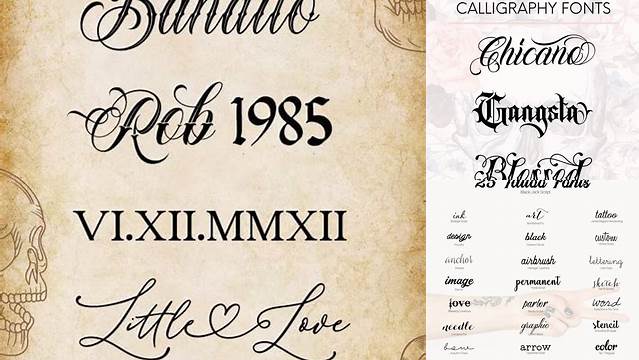
Best Tattoo Fonts For Names: Ultimate Guide 2024
Choosing the right font for a name tattoo is crucial. It's not just about aesthetics; it's about finding a font that reflects the personality and significance of the name itself. Guys, whether you’re getting a tattoo for yourself or honoring someone special, the font will be a permanent part of the design. This guide dives deep into the best tattoo fonts for names, exploring various styles and offering tips to make the perfect choice.
1. Script Tattoo Fonts for Names
Script fonts are a classic choice for name tattoos, offering elegance and a personal touch. When you’re thinking about best tattoo fonts for names, script styles often come to mind first. These fonts mimic handwriting, adding a sense of intimacy and artistry to the tattoo. There are countless variations within script fonts, from flowing and ornate to clean and modern. The key is to select a script that complements the name's length and the overall tattoo design. For instance, a longer name might look stunning in a cursive font with delicate flourishes, while a shorter name could benefit from a bolder, more defined script. Consider the placement of the tattoo as well; a script font might flow beautifully along the curve of a wrist or collarbone. The versatility of script fonts makes them a top contender when searching for the best tattoo fonts for names. It’s important to ensure the font is legible, even with intricate details, so the name remains clear and easy to read. Additionally, the thickness of the lines in the script should match the overall size of the tattoo to prevent blurring over time. Remember, the goal is to create a lasting tribute that not only looks beautiful but also remains readable for years to come.
2. Gothic Tattoo Fonts for Names
Gothic fonts bring a dramatic and bold feel to name tattoos. When you're aiming for something with a bit of edge, Gothic fonts are definitely in the running for best tattoo fonts for names. They evoke a sense of history and mystery, making them a popular choice for those who appreciate a more intense aesthetic. These fonts, with their sharp angles and elaborate details, can transform a simple name into a powerful statement. Think about the name you're tattooing; a Gothic font can add gravitas and depth. However, it's essential to consider the legibility of the font, especially if the name is long or complex. Too many intricate details can make the tattoo look cluttered and difficult to read over time. The placement of the tattoo also plays a significant role. Gothic fonts often work best on larger areas of the body where the details can be fully appreciated. They can be particularly striking on the back, chest, or upper arm. When exploring best tattoo fonts for names, Gothic fonts offer a unique way to personalize a tattoo and make it stand out. Working closely with your tattoo artist is crucial to ensure the chosen Gothic font fits well with the design and skin area. They can provide valuable insight into how the font will age and how best to maintain its clarity and impact.
3. Traditional Tattoo Fonts for Names
Traditional tattoo fonts offer a timeless and classic appeal. Often characterized by bold lines and clean lettering, these fonts are a fantastic option when you're considering the best tattoo fonts for names. They have a vintage vibe that resonates with the history of tattooing itself. These fonts are not only aesthetically pleasing but also highly legible, which is a crucial factor for any tattoo, especially one featuring a name. Traditional fonts are designed to stand the test of time, both in terms of style and durability on the skin. When you're thinking about the longevity of your tattoo, a traditional font is a safe bet. The simplicity of the design means it's less likely to blur or fade over the years, maintaining its clarity and impact. The boldness of the lines ensures the tattoo will remain visible, even as the ink settles and the skin ages. Considering the best tattoo fonts for names also involves thinking about the overall aesthetic you want to achieve. Traditional fonts pair well with classic tattoo imagery, such as anchors, roses, and eagles, creating a cohesive and visually appealing design. The versatility of these fonts makes them suitable for various placements on the body, from the forearm to the chest. Ultimately, choosing a traditional font for a name tattoo is a way to honor the art form's rich history while creating a lasting tribute.
4. Calligraphy Tattoo Fonts for Names
Calligraphy fonts bring an artistic and flowing quality to name tattoos. They're a top contender when you’re searching for the best tattoo fonts for names, offering a personalized and elegant touch. These fonts, inspired by the art of hand lettering, allow for a great deal of customization, making each tattoo unique. The beauty of calligraphy lies in its graceful strokes and the way the letters connect and flow together. This creates a visual rhythm that can enhance the aesthetic appeal of the name. When considering calligraphy, think about the specific style that resonates with you. There are many variations, from traditional scripts to modern and whimsical interpretations. The choice will depend on your personal taste and the overall design of the tattoo. For the best tattoo fonts for names, calligraphy provides a way to express individuality and artistic flair. A skilled tattoo artist can adapt the calligraphy style to fit the contours of your body, creating a tattoo that looks like a natural extension of your skin. Placement is key with calligraphy tattoos; they often look stunning on areas where the flow of the font can be fully appreciated, such as the wrist, collarbone, or along the spine. Remember, the goal is to create a tattoo that is not only beautiful but also legible and meaningful.
5. Cursive Tattoo Fonts for Names
Cursive fonts are a timeless choice for name tattoos, exuding elegance and fluidity. When you're exploring the best tattoo fonts for names, cursive styles consistently rank high due to their classic appeal. These fonts mimic handwriting, adding a personal and intimate touch to the tattoo. The flowing lines and connected letters create a visually pleasing effect, making cursive fonts ideal for names that you want to stand out with a sense of grace. There are numerous cursive variations, from delicate and ornate scripts to bolder and more modern styles. Choosing the right one involves considering the name’s length, the desired overall aesthetic, and the tattoo's placement. A longer name might look best in a simpler cursive, while a shorter name can handle more elaborate flourishes. When selecting the best tattoo fonts for names, legibility is paramount. Ensure that the cursive style you choose is clear and easy to read, even with its decorative elements. The size of the tattoo and the thickness of the lines also play a crucial role in maintaining clarity over time. Cursive fonts often shine when placed on areas that allow for the natural flow of the script, such as the wrist, forearm, or along the collarbone. Ultimately, a well-executed cursive name tattoo can be a beautiful and lasting tribute, capturing the essence of the name in an elegant and timeless manner.
6. Simple Tattoo Fonts for Names
Simple fonts offer a clean and understated elegance for name tattoos. If you're looking for the best tattoo fonts for names that are both timeless and easy to read, simple fonts are an excellent option. These fonts prioritize clarity and minimalism, making them a versatile choice for various styles and placements. A simple font can range from a basic sans-serif to a clean, slightly stylized script, allowing for personalization without overwhelming the design. The key advantage of simple fonts is their legibility. Unlike more ornate styles, simple fonts are less likely to blur or fade over time, ensuring the name remains clear and readable for years to come. This makes them a practical choice for those who value longevity in their tattoos. When considering the best tattoo fonts for names, simple fonts work well with different aesthetics, from traditional to modern. They can be easily paired with other design elements, such as symbols or images, without competing for attention. Additionally, simple fonts are suitable for a wide range of tattoo sizes and placements. They look equally good on a small, delicate tattoo on the wrist as they do on a larger piece on the back or chest. Whether you prefer a minimalist look or want a font that complements other tattoo elements, simple fonts offer a reliable and stylish choice for name tattoos.
7. Elegant Tattoo Fonts for Names
Elegant fonts bring a touch of sophistication and grace to name tattoos. When you’re searching for the best tattoo fonts for names that exude class, elegant fonts are a perfect choice. These fonts often feature delicate lines, graceful curves, and a sense of refined beauty. They are ideal for those who want their name tattoo to reflect a sense of poise and elegance. Elegant fonts come in various styles, from flowing scripts to refined serif typefaces, each offering a unique aesthetic appeal. The key to choosing an elegant font is to ensure it complements the name and the overall tattoo design. For instance, a longer name might look stunning in a script with intricate flourishes, while a shorter name could benefit from a more structured, yet elegant, serif font. When considering the best tattoo fonts for names, legibility should remain a priority. While elegance is important, the font should also be clear and easy to read. Overly ornate or intricate fonts can become difficult to decipher over time, especially as the tattoo ages. Elegant fonts often look best on areas of the body that allow for their graceful lines to flow naturally, such as the wrist, collarbone, or upper back. A well-chosen elegant font can transform a simple name tattoo into a sophisticated piece of art, making it a lasting tribute to the name and the person it represents.
8. Bold Tattoo Fonts for Names
Bold fonts make a strong statement in name tattoos, conveying confidence and presence. If you're aiming for the best tattoo fonts for names that stand out, bold fonts are an excellent choice. These fonts command attention with their thick lines and robust letterforms, making them highly visible and impactful. Bold fonts are particularly effective for shorter names or when you want the name to be the focal point of the tattoo. They work well in various styles, from classic block letters to more stylized and modern designs. The key benefit of bold fonts is their legibility. The thick lines ensure that the name remains clear and readable, even from a distance. This makes them a practical choice for tattoos that you want to be easily seen and understood. When considering the best tattoo fonts for names, think about the overall aesthetic you wish to achieve. Bold fonts can be paired with other design elements, but they are often most striking when used on their own, allowing the name to take center stage. Bold fonts are versatile and can be placed on various body parts, but they tend to look particularly impactful on areas like the forearm, upper arm, or chest. Whether you're looking to make a statement or simply want a font that ensures maximum visibility, bold fonts are a solid choice for name tattoos.
9. Unique Tattoo Fonts for Names
Unique fonts add a personal and distinctive touch to name tattoos, setting them apart from the ordinary. When you're searching for the best tattoo fonts for names that truly reflect individuality, unique fonts are the way to go. These fonts often feature unconventional letterforms, artistic flourishes, and a sense of originality. They are perfect for those who want their tattoo to be a true expression of their personality or the personality of the person they are honoring. Unique fonts can range from hand-drawn styles to custom-designed typefaces, offering endless possibilities for creativity. The key to choosing a unique font is to ensure it aligns with your personal taste and the overall tattoo design. A unique font should be both visually appealing and legible, striking a balance between artistic flair and clarity. When considering the best tattoo fonts for names, remember that a unique font can make a lasting impression. It can transform a simple name into a work of art, showcasing your individuality and style. Unique fonts are versatile and can be adapted to various tattoo sizes and placements, but they often look best when given enough space to shine. Whether you opt for a whimsical script or a bold, unconventional typeface, a unique font can make your name tattoo truly one-of-a-kind.
10. Modern Tattoo Fonts for Names
Modern fonts bring a sleek and contemporary feel to name tattoos. If you're aiming for the best tattoo fonts for names that exude a fresh and stylish vibe, modern fonts are an excellent option. These fonts typically feature clean lines, geometric shapes, and a minimalist aesthetic, making them ideal for those who appreciate a sophisticated and up-to-date look. Modern fonts are versatile and can be used in various tattoo styles, from simple and understated designs to more complex and artistic compositions. They work well with both shorter and longer names, offering a clean and legible appearance. The key advantage of modern fonts is their timeless appeal. Their simplicity and clarity ensure that the tattoo remains stylish and readable for years to come. When considering the best tattoo fonts for names, modern fonts offer a balance between aesthetics and functionality. They can be easily paired with other design elements, such as symbols or graphics, without overwhelming the overall tattoo. Modern fonts are suitable for various body placements, from the wrist and forearm to the back and chest. Whether you prefer a sleek sans-serif or a stylized geometric typeface, modern fonts provide a contemporary and lasting way to honor a name.
11. Old English Tattoo Fonts for Names
Old English fonts evoke a sense of tradition and heritage in name tattoos. When you're searching for the best tattoo fonts for names with a classic and historical feel, Old English fonts are a compelling choice. These fonts, characterized by their ornate letterforms and elegant strokes, add a touch of vintage sophistication to any design. Old English fonts are particularly popular for those who want to celebrate their ancestry or convey a sense of timelessness and gravitas. They are often used to create tattoos that have a strong visual impact and a sense of enduring significance. The key to using Old English fonts effectively is to ensure legibility. While these fonts are visually striking, their intricate details can sometimes make them difficult to read, especially in smaller sizes. When considering the best tattoo fonts for names, it's essential to work closely with your tattoo artist to select a size and placement that maximizes clarity. Old English fonts often look best on larger areas of the body, such as the back, chest, or upper arm, where the details can be fully appreciated. Whether you're honoring a family name or simply appreciate the classic aesthetic, Old English fonts offer a powerful way to create a meaningful and lasting tattoo.
12. Tribal Tattoo Fonts for Names
Tribal fonts infuse name tattoos with a bold and primal energy. If you're seeking the best tattoo fonts for names that have a strong, cultural connection, tribal fonts are worth considering. These fonts are inspired by the traditional art and lettering of various indigenous cultures, often featuring geometric shapes, sharp angles, and bold lines. Tribal fonts can add a unique and powerful aesthetic to a name tattoo, making it stand out with a sense of heritage and strength. They are particularly popular among those who want to honor their cultural roots or simply appreciate the striking visual impact of tribal designs. The key to using tribal fonts effectively is to ensure they complement the overall tattoo design and resonate with your personal style. Tribal fonts are versatile and can be adapted to various sizes and placements, but they often look best on larger areas of the body, such as the arm, back, or chest. When considering the best tattoo fonts for names, think about the specific tribal style that appeals to you. Research different cultures and their traditional art forms to find a font that truly reflects your vision. A well-chosen tribal font can transform a simple name tattoo into a powerful and meaningful piece of art.
13. Handwritten Tattoo Fonts for Names
Handwritten fonts add a personal and intimate touch to name tattoos. When you're looking for the best tattoo fonts for names that feel genuine and heartfelt, handwritten fonts are an excellent choice. These fonts mimic the look and feel of actual handwriting, making each tattoo unique and deeply personal. Handwritten fonts can range from elegant scripts to casual and playful styles, offering a wide range of options to suit individual preferences. They are perfect for those who want their tattoo to convey a sense of warmth and authenticity. The key to choosing a handwritten font is to ensure it is both legible and reflective of the desired tone. A handwritten font should be clear enough to read easily, even with its natural imperfections and variations. When considering the best tattoo fonts for names, think about the message you want to convey. A formal script can evoke a sense of elegance, while a more casual style can feel friendly and approachable. Handwritten fonts are versatile and can be placed on various parts of the body, but they often look particularly meaningful on areas like the wrist, collarbone, or near the heart. A well-chosen handwritten font can transform a name tattoo into a cherished and deeply personal piece of art.
14. Outline Tattoo Fonts for Names
Outline fonts offer a subtle yet striking effect for name tattoos. If you're searching for the best tattoo fonts for names that have a clean and modern look, outline fonts are a great option. These fonts feature the shape of the letters without filling them in, creating a distinctive and visually appealing design. Outline fonts are versatile and can be used in various tattoo styles, from minimalist to more complex compositions. They work well with both shorter and longer names, offering a clean and legible appearance. The key benefit of outline fonts is their ability to stand out without being overly bold. The empty space within the letters draws the eye and creates a sense of lightness and airiness. When considering the best tattoo fonts for names, outline fonts provide a balance between visibility and subtlety. They can be easily paired with other design elements, such as shading or background patterns, without overwhelming the overall tattoo. Outline fonts are suitable for various body placements, from the wrist and ankle to the back and shoulder. Whether you prefer a minimalist look or want a font that complements other tattoo elements, outline fonts offer a stylish and contemporary choice for name tattoos.
15. Shadow Tattoo Fonts for Names
Shadow fonts add depth and dimension to name tattoos, creating a visually dynamic effect. When you're looking for the best tattoo fonts for names that have a three-dimensional appearance, shadow fonts are an excellent choice. These fonts incorporate a shadow effect that makes the letters appear to pop off the skin, adding an extra layer of interest and sophistication. Shadow fonts are versatile and can be used in various tattoo styles, from classic to modern designs. They work well with both shorter and longer names, offering a unique and eye-catching appearance. The key benefit of shadow fonts is their ability to create visual depth. The shadow effect adds a sense of realism and makes the tattoo stand out. When considering the best tattoo fonts for names, shadow fonts can transform a simple design into a striking piece of art. They can be used to create a bold and dramatic look or a more subtle and understated effect, depending on the placement and intensity of the shadow. Shadow fonts are suitable for various body placements, but they often look best on areas where the three-dimensional effect can be fully appreciated, such as the arm, shoulder, or back. Whether you prefer a bold and dramatic statement or a subtle touch of depth, shadow fonts offer a unique and visually appealing way to display a name.
16. Italic Tattoo Fonts for Names
Italic fonts bring a sense of movement and flow to name tattoos. When you're searching for the best tattoo fonts for names that have a dynamic and stylish appeal, italic fonts are a fantastic option. These fonts, characterized by their slanted letterforms, add a touch of elegance and energy to any design. Italic fonts are versatile and can be used in various tattoo styles, from classic scripts to modern typefaces. They work well with both shorter and longer names, offering a visually appealing and legible appearance. The key benefit of italic fonts is their ability to convey a sense of motion. The slanted letters create a feeling of forward movement, making the tattoo feel lively and dynamic. When considering the best tattoo fonts for names, italic fonts can add a unique and stylish touch. They are often used to emphasize certain words or names, making them stand out and grab attention. Italic fonts are suitable for various body placements, but they often look particularly striking on areas where the flow of the letters can be fully appreciated, such as the wrist, forearm, or along the collarbone. Whether you prefer a classic italic script or a modern slanted typeface, italic fonts offer a dynamic and stylish way to display a name.
17. Small Tattoo Fonts for Names
Small fonts offer a subtle and delicate option for name tattoos. If you're looking for the best tattoo fonts for names that are understated and discreet, small fonts are an excellent choice. These fonts are perfect for those who prefer a minimalist aesthetic or want to place a tattoo in a less conspicuous area. Small fonts can be used in various tattoo styles, from simple lines to more intricate designs. They work well with both shorter and longer names, offering a clean and elegant appearance. The key benefit of small fonts is their subtlety. They allow you to display a name in a discreet and understated way, making them ideal for those who prefer a more minimalist look. When considering the best tattoo fonts for names, small fonts provide a balance between personal expression and discretion. They can be placed on various body parts, such as the wrist, ankle, or behind the ear, where they will be visible but not overly prominent. It’s essential to choose a font that remains legible even in a small size. Simple and clean fonts tend to work best for small tattoos, ensuring that the name remains clear and readable over time. Whether you prefer a minimalist aesthetic or want a tattoo in a discreet location, small fonts offer a subtle and elegant way to display a name.
18. Large Tattoo Fonts for Names
Large fonts make a bold and impactful statement for name tattoos. If you're searching for the best tattoo fonts for names that command attention and create a strong visual presence, large fonts are an excellent choice. These fonts are ideal for those who want their tattoo to be a focal point and a true expression of their personality or the person they are honoring. Large fonts are versatile and can be used in various tattoo styles, from classic scripts to modern typefaces. They work best with shorter names or when the name is the central element of the design. The key benefit of large fonts is their high visibility. They ensure that the name stands out and is easily readable, even from a distance. When considering the best tattoo fonts for names, large fonts can transform a simple name into a striking piece of art. They are often used on larger areas of the body, such as the back, chest, or upper arm, where they can be fully appreciated. It’s essential to choose a font that maintains its legibility and aesthetic appeal when enlarged. Bold and clean fonts tend to work best for large tattoos, ensuring that the letters remain clear and well-defined. Whether you prefer a bold and dramatic look or want a tattoo that commands attention, large fonts offer a powerful and impactful way to display a name.
19. Thin Tattoo Fonts for Names
Thin fonts offer a delicate and refined option for name tattoos. If you're looking for the best tattoo fonts for names that have a subtle and elegant appearance, thin fonts are a great choice. These fonts feature slender letterforms that create a sense of lightness and grace. Thin fonts are versatile and can be used in various tattoo styles, from minimalist designs to more intricate compositions. They work well with both shorter and longer names, offering a clean and sophisticated look. The key benefit of thin fonts is their understated elegance. They allow you to display a name in a subtle and refined way, making them ideal for those who prefer a more delicate aesthetic. When considering the best tattoo fonts for names, thin fonts provide a balance between personal expression and subtlety. They can be placed on various body parts, such as the wrist, collarbone, or ankle, where their delicate lines will be appreciated. It’s crucial to choose a font that remains legible over time. Thin fonts may require more careful application and maintenance to prevent blurring or fading. Simple and well-spaced thin fonts tend to work best, ensuring that the name remains clear and readable. Whether you prefer a minimalist aesthetic or want a tattoo that exudes elegance, thin fonts offer a refined and understated way to display a name.
20. Rounded Tattoo Fonts for Names
Rounded fonts bring a soft and friendly feel to name tattoos. When you're searching for the best tattoo fonts for names that have a gentle and approachable vibe, rounded fonts are an excellent choice. These fonts, characterized by their smooth curves and lack of sharp edges, add a touch of warmth and playfulness to any design. Rounded fonts are versatile and can be used in various tattoo styles, from casual to more stylized compositions. They work well with both shorter and longer names, offering a visually pleasing and legible appearance. The key benefit of rounded fonts is their friendly aesthetic. The smooth curves create a welcoming and approachable feel, making the tattoo feel less intimidating and more inviting. When considering the best tattoo fonts for names, rounded fonts can add a unique and personal touch. They are often used to convey a sense of warmth, care, and affection. Rounded fonts are suitable for various body placements, but they often look particularly appealing on areas where their gentle curves can be fully appreciated, such as the arm, shoulder, or calf. Whether you prefer a casual and friendly look or want a tattoo that conveys warmth and affection, rounded fonts offer a unique and appealing way to display a name.
21. Block Tattoo Fonts for Names
Block fonts offer a bold and straightforward option for name tattoos. If you're looking for the best tattoo fonts for names that have a strong and legible appearance, block fonts are an excellent choice. These fonts feature solid, uniform letterforms that create a sense of stability and presence. Block fonts are versatile and can be used in various tattoo styles, from classic to modern designs. They work best with shorter names or when the name is the central element of the tattoo design. The key benefit of block fonts is their high legibility. The solid, well-defined letters ensure that the name stands out and is easily readable, even from a distance. When considering the best tattoo fonts for names, block fonts can transform a simple name into a bold and impactful statement. They are often used on larger areas of the body, such as the back, chest, or upper arm, where their strong presence can be fully appreciated. It’s important to choose a block font that maintains its clarity and aesthetic appeal when applied to the skin. Simple and clean block fonts tend to work best, ensuring that the letters remain crisp and well-defined over time. Whether you prefer a classic and timeless look or want a tattoo that commands attention, block fonts offer a reliable and impactful way to display a name.
22. Distorted Tattoo Fonts for Names
Distorted fonts add a unique and edgy twist to name tattoos. When you're searching for the best tattoo fonts for names that stand out and express individuality, distorted fonts are an intriguing option. These fonts feature letterforms that have been intentionally altered, creating a sense of unconventional style and artistic flair. Distorted fonts can range from subtly tweaked designs to more dramatically altered styles, offering a wide range of options to suit personal preferences. They are perfect for those who want their tattoo to convey a sense of creativity and originality. The key to using distorted fonts effectively is to ensure legibility. While these fonts are designed to be unique, it’s crucial that the name remains readable. When considering the best tattoo fonts for names, distorted fonts can transform a simple name into a captivating work of art. They are often used to convey a sense of mystery, rebellion, or artistic expression. Distorted fonts are versatile and can be placed on various parts of the body, but they often look particularly striking on areas where their unique aesthetic can be fully appreciated, such as the arm, shoulder, or back. Whether you prefer a subtle twist or a bold distortion, these fonts offer a unique and artistic way to display a name.
23. Pixel Tattoo Fonts for Names
Pixel fonts bring a retro and tech-inspired vibe to name tattoos. If you're looking for the best tattoo fonts for names that have a unique and nostalgic feel, pixel fonts are an excellent choice. These fonts are inspired by the blocky, low-resolution lettering of early computer displays and video games, adding a fun and distinctive touch to any design. Pixel fonts are versatile and can be used in various tattoo styles, from minimalist designs to more elaborate compositions. They work well with both shorter and longer names, offering a visually interesting and legible appearance. The key benefit of pixel fonts is their retro appeal. They evoke a sense of nostalgia for the early days of technology and gaming, making the tattoo feel unique and memorable. When considering the best tattoo fonts for names, pixel fonts can add a playful and distinctive touch. They are often used to convey a sense of fun, creativity, and individuality. Pixel fonts are suitable for various body placements, but they often look particularly appealing on areas where their unique aesthetic can be fully appreciated, such as the arm, leg, or shoulder. Whether you prefer a minimalist pixel design or a more elaborate composition, pixel fonts offer a unique and tech-inspired way to display a name.
24. 3D Tattoo Fonts for Names
3D fonts add a striking three-dimensional effect to name tattoos. When you're searching for the best tattoo fonts for names that pop and have visual depth, 3D fonts are an excellent choice. These fonts incorporate shading and perspective techniques to create the illusion that the letters are raised or floating above the skin, adding an extra layer of interest and sophistication. 3D fonts are versatile and can be used in various tattoo styles, from classic designs to more modern and abstract compositions. They work well with both shorter and longer names, offering a unique and eye-catching appearance. The key benefit of 3D fonts is their ability to create a realistic visual effect. The added depth and dimension make the tattoo stand out and grab attention. When considering the best tattoo fonts for names, 3D fonts can transform a simple design into a captivating work of art. They are often used to convey a sense of power, strength, or artistic flair. 3D fonts are suitable for various body placements, but they often look best on areas where the three-dimensional effect can be fully appreciated, such as the arm, shoulder, or back. Whether you prefer a subtle 3D effect or a bold and dramatic statement, these fonts offer a visually appealing and unique way to display a name.
25. Brush Script Tattoo Fonts for Names
Brush script fonts bring an artistic and flowing handwritten style to name tattoos. When you're searching for the best tattoo fonts for names that have a natural and expressive feel, brush script fonts are an excellent option. These fonts mimic the look of calligraphy created with a brush, adding a personal and intimate touch to the design. Brush script fonts are versatile and can be used in various tattoo styles, from elegant and formal scripts to more casual and whimsical styles. They work well with both shorter and longer names, offering a visually appealing and unique appearance. The key benefit of brush script fonts is their artistic flair. The flowing lines and varying stroke thicknesses create a sense of movement and energy, making the tattoo feel lively and dynamic. When considering the best tattoo fonts for names, brush script fonts can add a personal and handcrafted touch. They are often used to convey a sense of warmth, creativity, and individuality. Brush script fonts are suitable for various body placements, but they often look particularly striking on areas where the flow of the letters can be fully appreciated, such as the wrist, forearm, or along the collarbone. Whether you prefer a formal script or a more casual style, brush script fonts offer a unique and artistic way to display a name.
26. Graffiti Tattoo Fonts for Names
Graffiti fonts infuse name tattoos with an urban and edgy style. If you're looking for the best tattoo fonts for names that have a bold and rebellious vibe, graffiti fonts are a fantastic choice. These fonts are inspired by the street art and graffiti culture, adding a unique and dynamic touch to any design. Graffiti fonts are versatile and can be used in various tattoo styles, from simple and stylized lettering to more elaborate and colorful compositions. They work well with both shorter and longer names, offering a visually striking and unconventional appearance. The key benefit of graffiti fonts is their urban appeal. The bold lines, sharp angles, and often stylized letterforms create a sense of energy and rebellion, making the tattoo stand out. When considering the best tattoo fonts for names, graffiti fonts can transform a simple name into a statement of individuality and style. They are often used to convey a sense of creativity, freedom, and urban culture. Graffiti fonts are suitable for various body placements, but they often look particularly striking on larger areas where their unique aesthetic can be fully appreciated, such as the arm, shoulder, or back. Whether you prefer a simple tag or a more elaborate piece, graffiti fonts offer a bold and edgy way to display a name.
27. Geometric Tattoo Fonts for Names
Geometric fonts bring a modern and structured feel to name tattoos. When you're searching for the best tattoo fonts for names that have a clean and contemporary look, geometric fonts are an excellent option. These fonts are characterized by their precise shapes, clean lines, and minimalist design, adding a touch of sophistication and order to any tattoo. Geometric fonts are versatile and can be used in various tattoo styles, from simple and understated designs to more complex and abstract compositions. They work well with both shorter and longer names, offering a visually appealing and legible appearance. The key benefit of geometric fonts is their clean aesthetic. The precise shapes and lines create a sense of balance and harmony, making the tattoo feel modern and sophisticated. When considering the best tattoo fonts for names, geometric fonts can add a unique and contemporary touch. They are often used to convey a sense of precision, order, and minimalist style. Geometric fonts are suitable for various body placements, but they often look particularly striking on areas where their clean lines can be fully appreciated, such as the wrist, forearm, or ankle. Whether you prefer a minimalist design or want a font that complements other geometric elements, these fonts offer a modern and structured way to display a name.
28. Western Tattoo Fonts for Names
Western fonts evoke a vintage and rustic charm for name tattoos. If you're looking for the best tattoo fonts for names that have a classic and rugged feel, Western fonts are a great choice. These fonts, inspired by the lettering styles of the American Old West, add a touch of history and adventure to any design. Western fonts are versatile and can be used in various tattoo styles, from traditional Western imagery to more modern interpretations. They work well with both shorter and longer names, offering a visually striking and unique appearance. The key benefit of Western fonts is their vintage appeal. The bold, stylized letterforms and often decorative elements create a sense of nostalgia and frontier spirit, making the tattoo feel timeless and unique. When considering the best tattoo fonts for names, Western fonts can add a touch of character and personality. They are often used to convey a sense of independence, adventure, and classic American style. Western fonts are suitable for various body placements, but they often look particularly striking on areas where their bold and rustic aesthetic can be fully appreciated, such as the arm, shoulder, or back. Whether you prefer a classic Western look or want a font that complements other vintage elements, these fonts offer a unique and charming way to display a name.
29. Outline with Fill Tattoo Fonts for Names
Combining outline and fill in fonts creates a dynamic and visually appealing effect for name tattoos. If you're searching for the best tattoo fonts for names that have a balanced and eye-catching design, this combination is an excellent choice. The outline provides a clear structure and definition to the letters, while the fill adds depth and substance, making the tattoo stand out. This style is versatile and can be used in various tattoo designs, from minimalist to more complex compositions. It works well with both shorter and longer names, offering a legible and unique appearance. The key benefit of combining outline and fill is the enhanced visual impact. The contrast between the outline and the filled interior creates a striking effect that draws the eye. When considering the best tattoo fonts for names, this technique allows for a balance between boldness and clarity. The outline ensures the name remains readable, while the fill adds presence and style. This approach is suitable for various body placements, but it often looks particularly effective on areas where the details can be fully appreciated, such as the arm, shoulder, or chest. Whether you prefer a subtle fill or a bold contrast, combining outline and fill offers a dynamic and visually appealing way to display a name.
30. Serif Tattoo Fonts for Names
Serif fonts offer a classic and traditional option for name tattoos. When you're looking for the best tattoo fonts for names that have a timeless and elegant appeal, serif fonts are an excellent choice. These fonts are characterized by the small decorative strokes (serifs) at the end of each letter, adding a touch of sophistication and formality to the design. Serif fonts are versatile and can be used in various tattoo styles, from simple and understated compositions to more elaborate and ornamental designs. They work well with both shorter and longer names, offering a legible and aesthetically pleasing appearance. The key benefit of serif fonts is their classic elegance. The serifs add a touch of refinement and tradition, making the tattoo feel sophisticated and timeless. When considering the best tattoo fonts for names, serif fonts can convey a sense of history and formality. They are often used to honor a name in a dignified and stylish manner. Serif fonts are suitable for various body placements, but they often look particularly striking on areas where their classic aesthetic can be fully appreciated, such as the wrist, forearm, or back. Whether you prefer a simple and understated serif font or a more elaborate and ornamental design, these fonts offer a classic and elegant way to display a name.